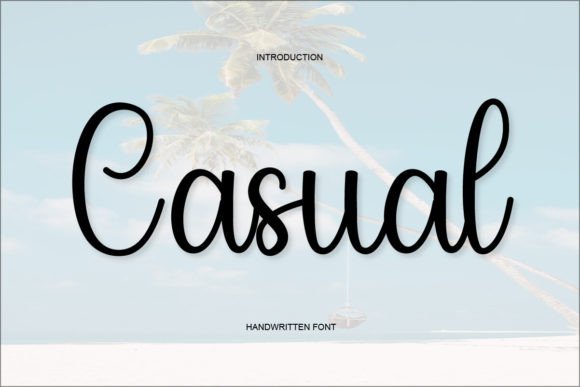
The Perfect Handwritten Touch: A Deep Dive into Casual Font
I’ll never forget the time I was working on a wedding invitation project for a dear friend. I had all the design elements in place – beautiful floral arrangements, elegant graphics, and a warm color palette. But something was missing. As I scrolled through font after font, I just couldn’t find the right handwritten touch to bring the whole design together. That’s when I stumbled upon Casual, a stylish and incredibly elegant handwritten font. ✨
An Honest Review of Casual Font
- ✨ Elegant and sophisticated, yet approachable and friendly
- ✅ Highly versatile – perfect for wedding invitations, thank you cards, quotes, greeting cards, logos, business cards, and more
- 💫 Beautifully crafted with attention to detail, giving it a luxurious feel
- 🎨 Highly legible, even at smaller font sizes
While Casual Font is an excellent choice for many design projects, there are a few things to keep in mind: 🤔
- ⚠️ It may not be the best fit for very formal or corporate designs, as it leans more towards elegant and sophisticated
- ⚠️ Some users have reported issues with kerning on certain letters – but this can often be adjusted in design software
A Practical Guide to Using Casual Font
The Story Behind Casual Font
Casual Font was designed with the intention of creating a beautiful, elegant handwritten font that could be used for a wide range of design projects. The designer, inspired by classic calligraphy and modern typography, crafted Casual Font to be both sophisticated and approachable. 💫
| Font Name | Casual Font |
| Author | AA studio |